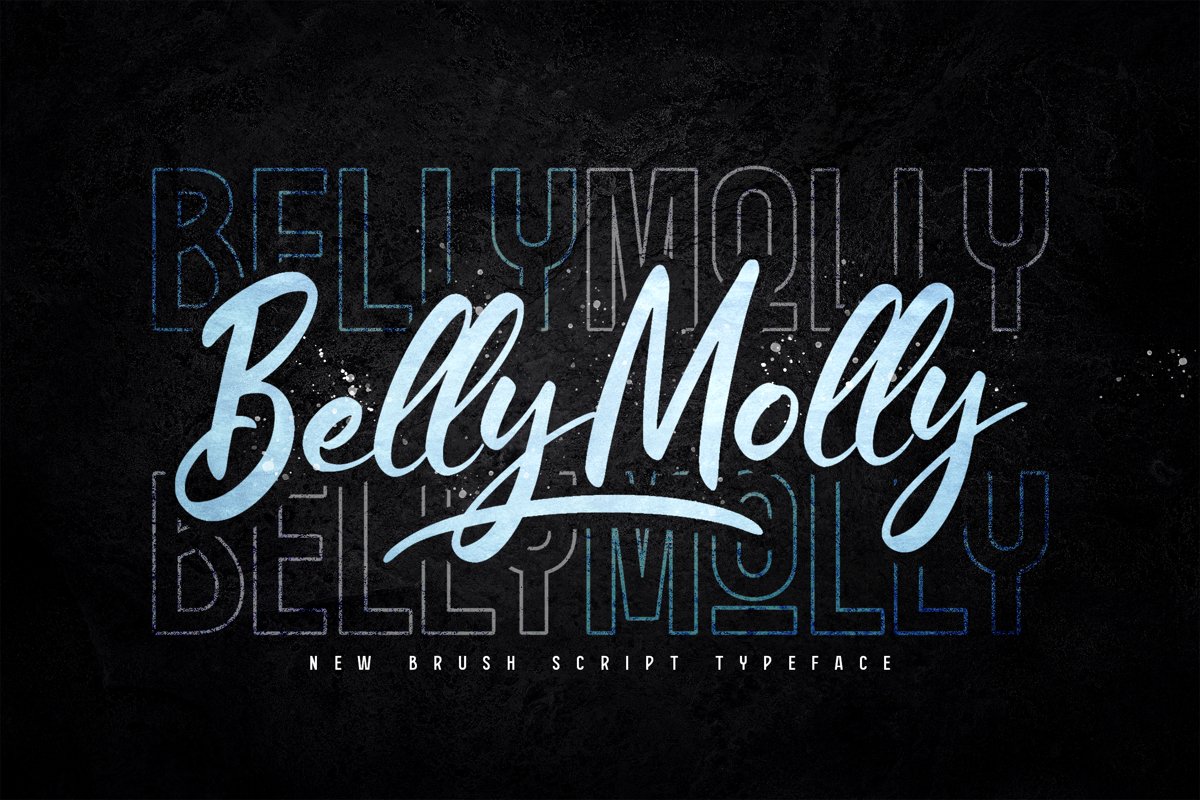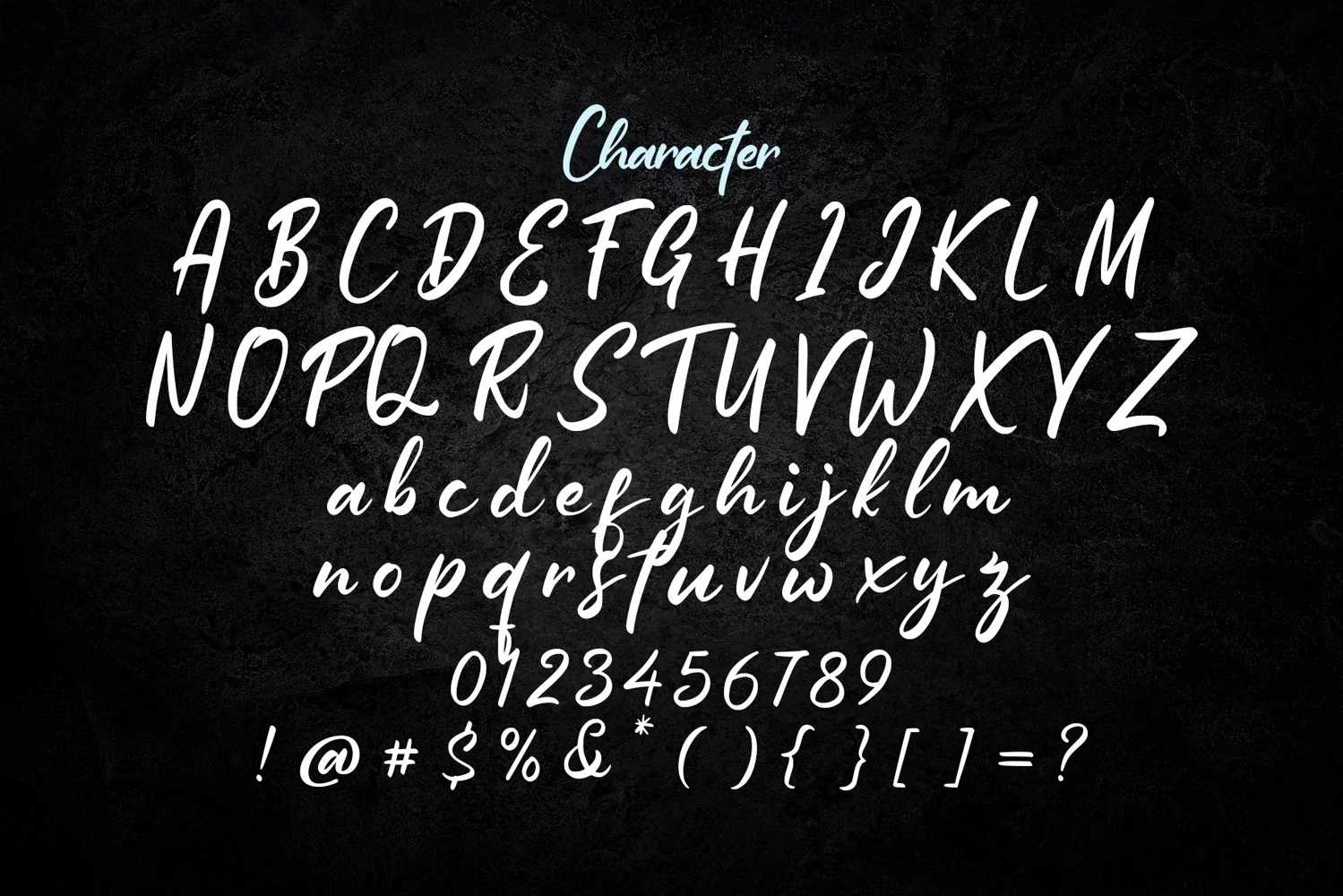
BellyMolly is a display typeface. Perfect for display, posters, quotes, branding, business card, greeting card, crafting needs, logo, logotype, badges, emblem, header, tittle, merchandise, packaging, and many more.